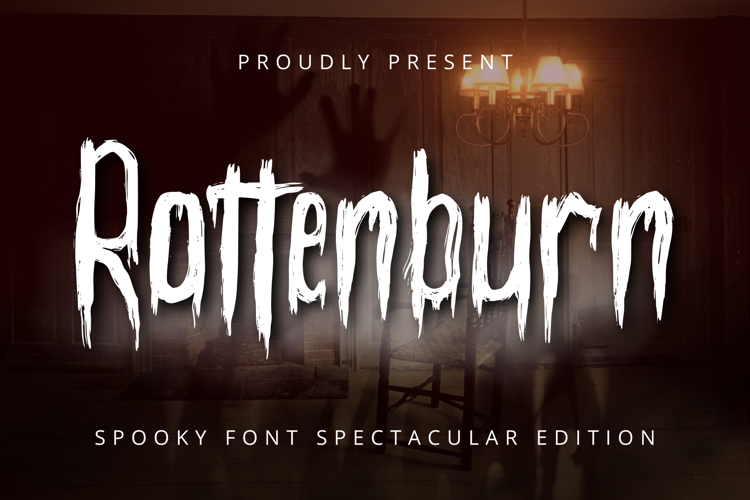
Rottenburn
Rottenburn - Italic
Rottenburn is a scary display font with rough strokes and dripping details that create a chilling Halloween vibe. Its messy yet natural look makes it perfect for spooky posters, horror movie titles, party invitations, and eerie merchandise.
With its creepy, handmade style and subtle blood effect, Rottenburn will bring a dark and haunting touch to any design.